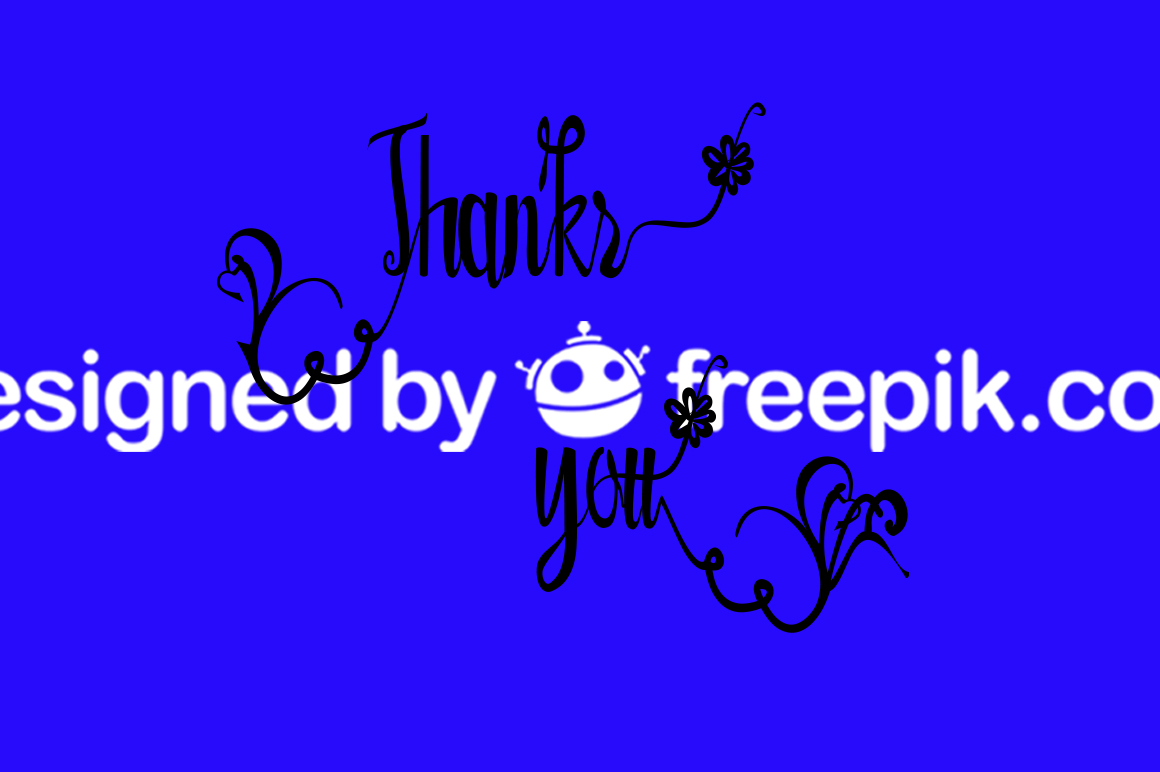
Introduction to Braiden Font
Enter the Braiden Font, a modern calligraphy script font crafted with love and care by hand. This beautiful font is not just a pretty face – it’s a valuable tool for designers looking to add a touch of elegance and sophistication to their work. With its high-quality lines and transparent background, Braiden Font is the perfect addition to any design project.
Key Features of Braiden Font
- High-quality font design ideal for creative projects and designs.
- Perfect for designs requiring a transparent background, making it easy to overlay on images.
- Designed with a clean and modern aesthetic, making it suitable for a wide range of design applications.
Honest Review: Braiden Font
As a designer, I’ve had the chance to work with a variety of fonts, and I have to say that Braiden Font is a great addition to my design resource library. The first thing that caught my attention was the high quality of the font, which makes it perfect for any creative project.
- Beautiful script font perfect for invitations, quotes, and headings
- High-quality design that looks great on both light and dark backgrounds
- Transparent background for easy layering and manipulation
However, I do have a few limitations with the Braiden Font: ⚠️
- It may not be the best choice for body text, as it can be a bit too ornate
- Some of the letters may not be perfectly connected, which can be a bit distracting
Overall, I’m really impressed with the Braiden Font. It’s a great addition to my design library, and I’m sure it will come in handy for many of my creative projects. ✨
High-Quality Results
The Braiden Font is a high-quality design resource that offers a transparent background, making it perfect for use in a variety of design applications. To get the most out of the font, use it in conjunction with other design elements, such as images and graphics, to create a visually appealing design.
The Braiden Font is commonly used in a variety of design projects, including logos, business cards, and social media graphics. It is also a popular choice for use in presentations and reports, where a clear and readable font is essential.